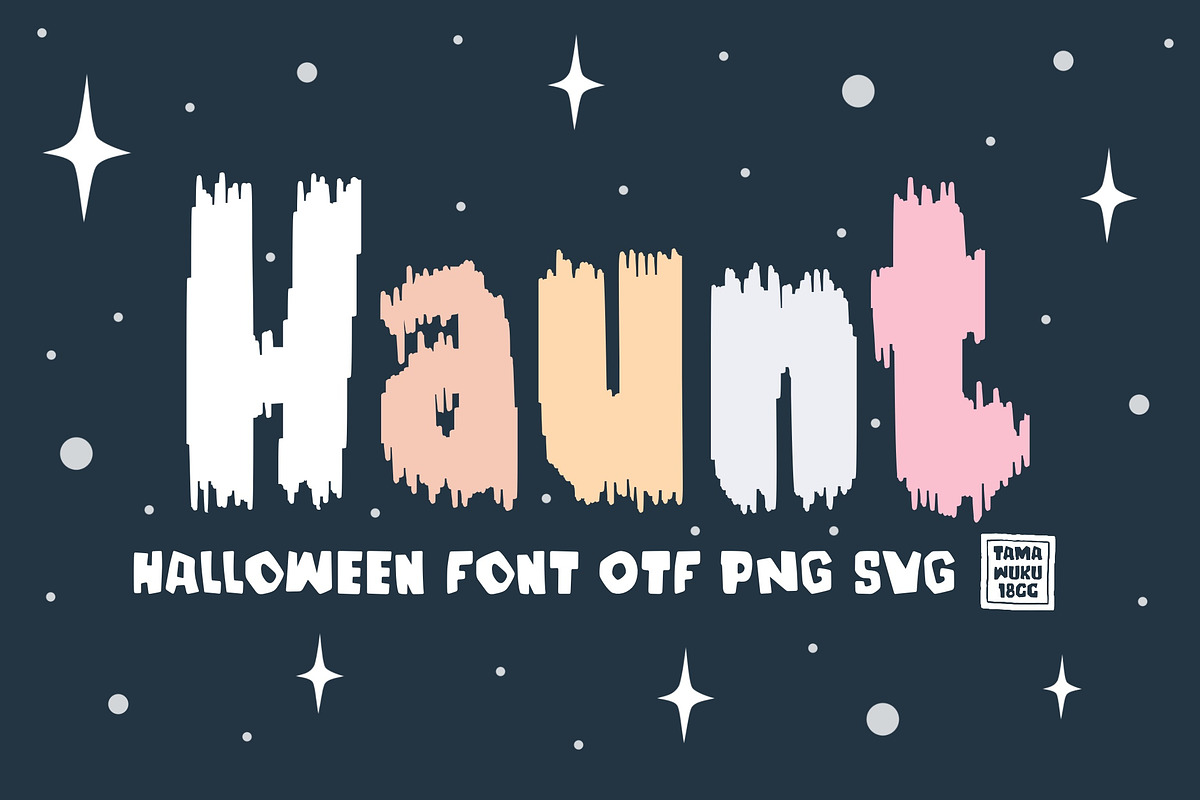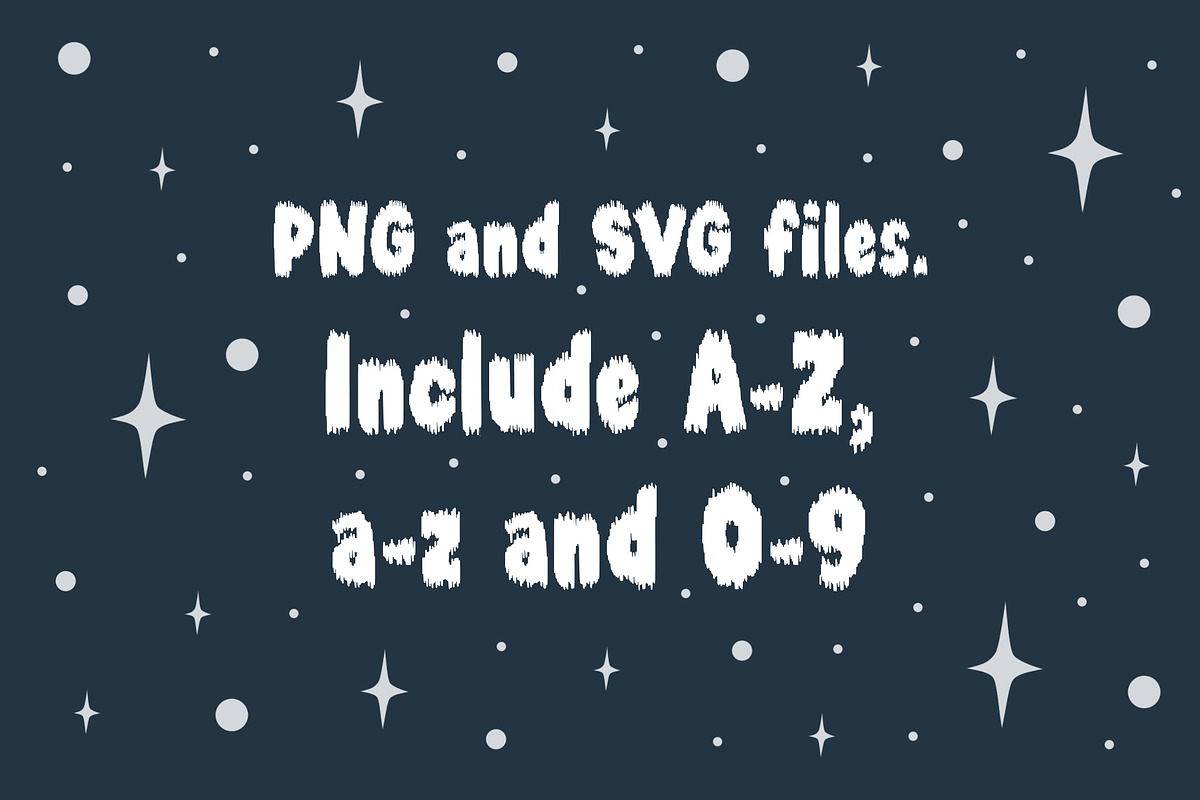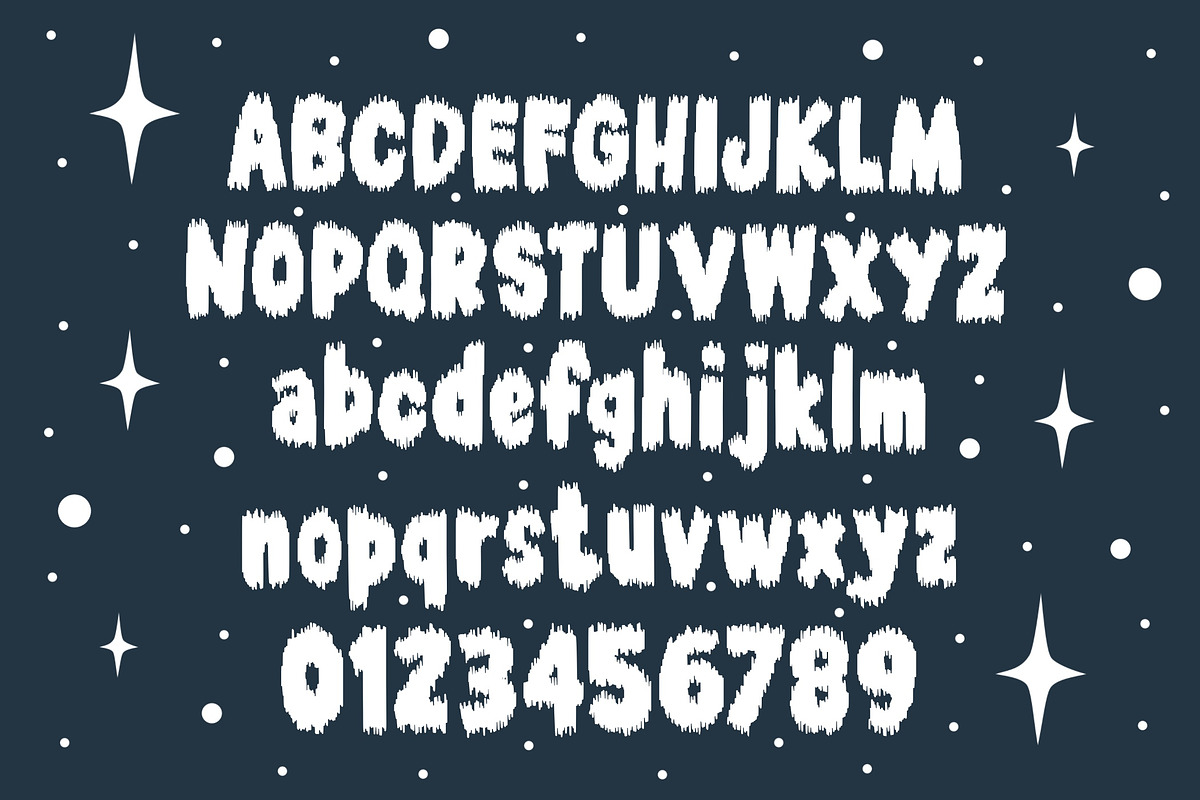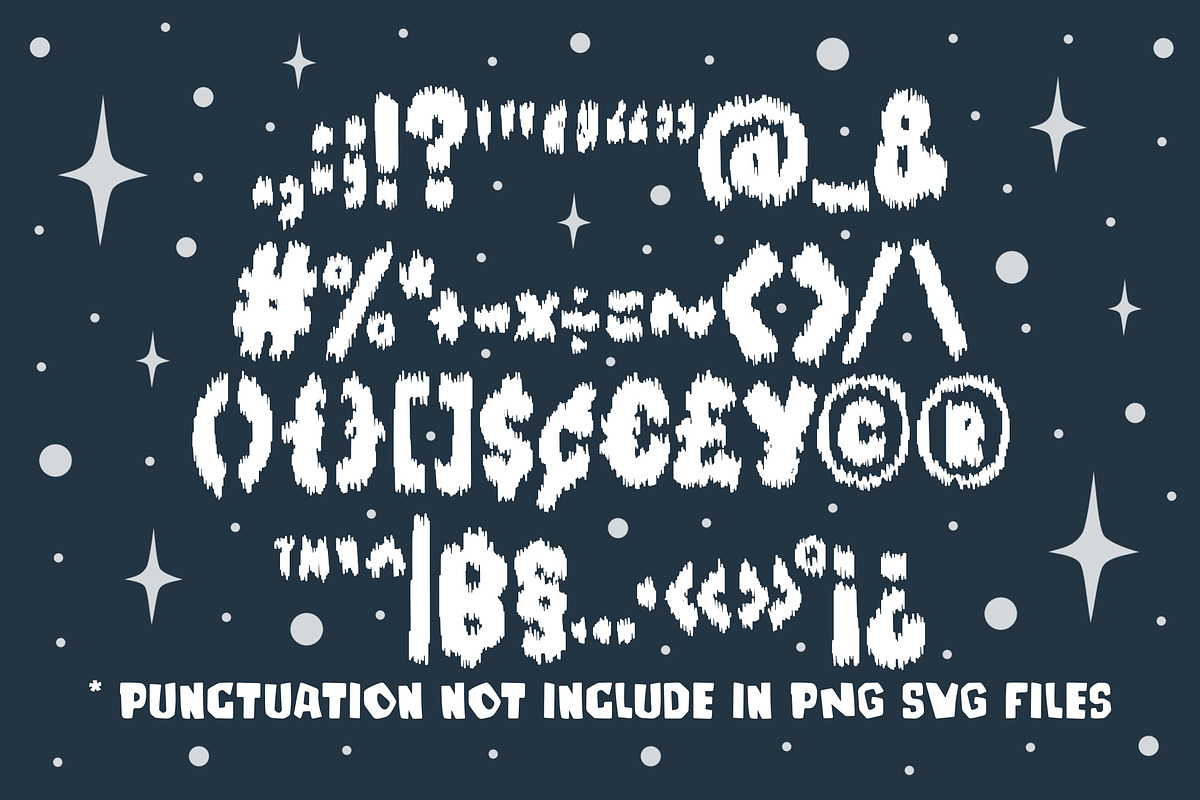
Haunt OTF PNG SVG
Haunt is a Halloween Theme Font. It looks a little runny and disgusting. Suitable for decorating during the festival. Perfect fit for all of your logos, branding, social media, crafty DIY projects, and much more!